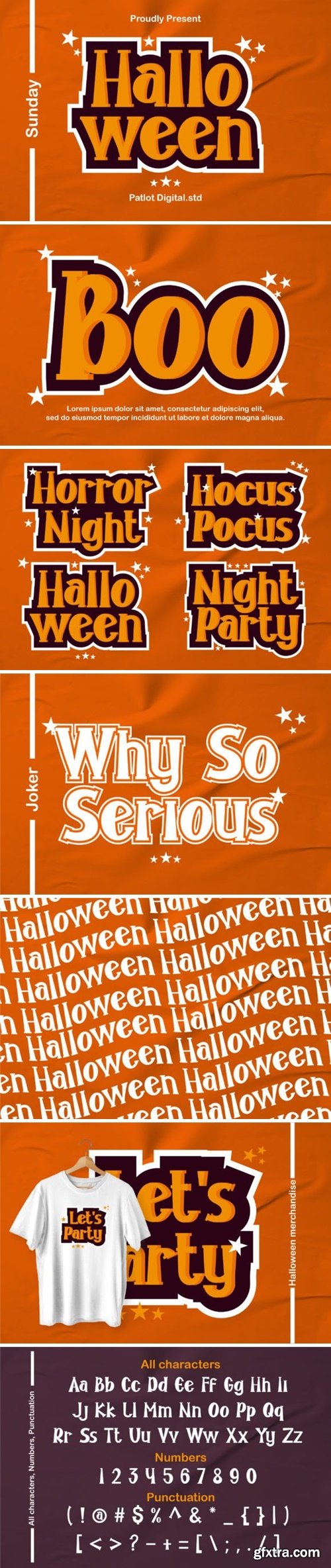
Halloween Sunday is an awesome Serif display font. Use it to create spectacular designs as it will make a great addition to your fun projects such as Halloween flyers, Halloween greetings, Easter, back to school, party decorations, Christmas, and more.